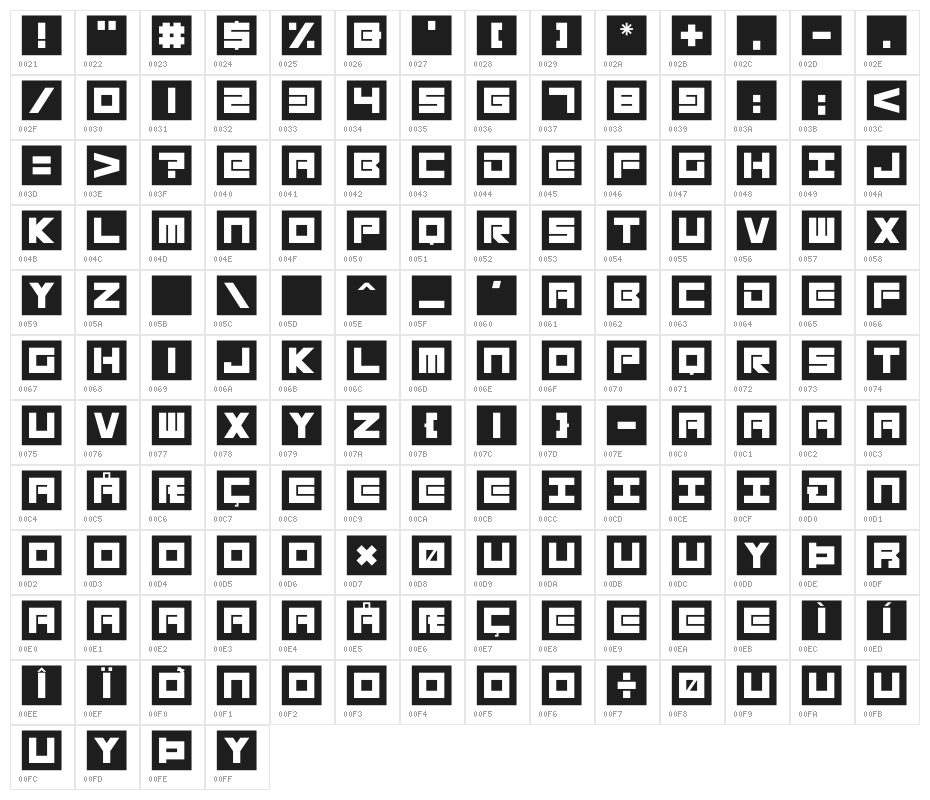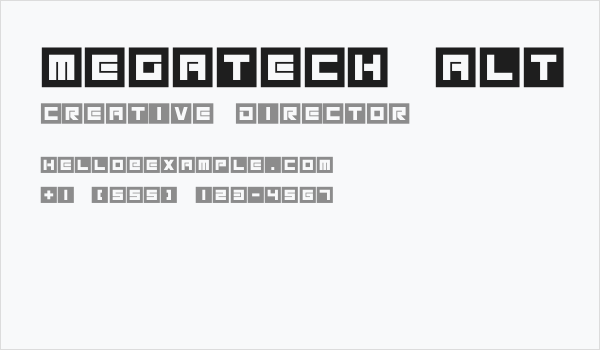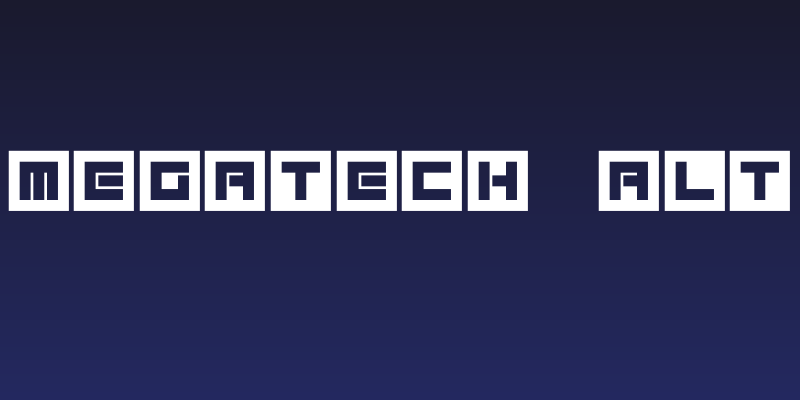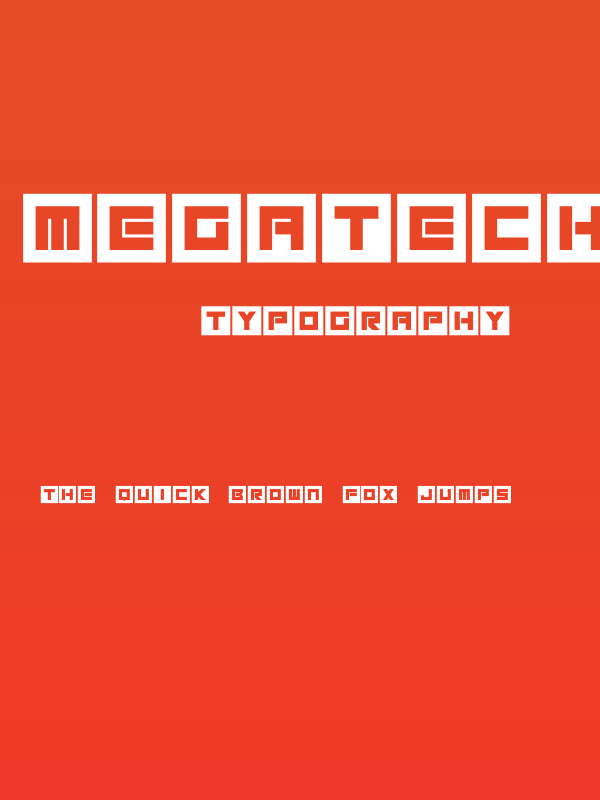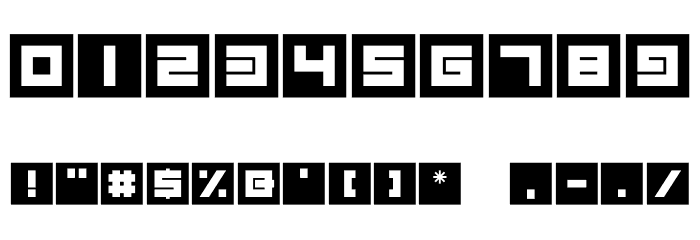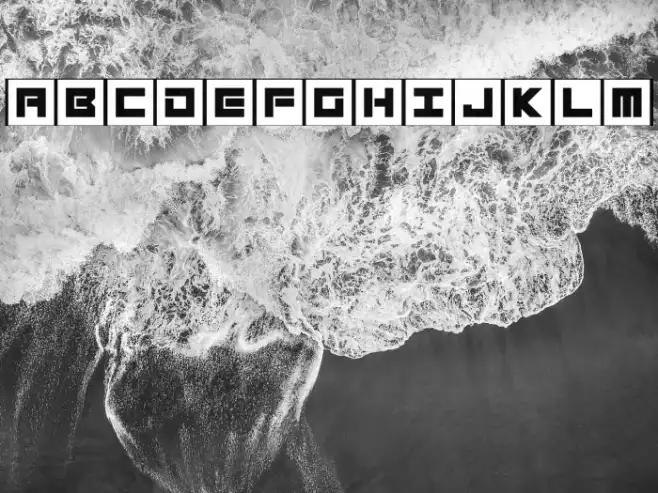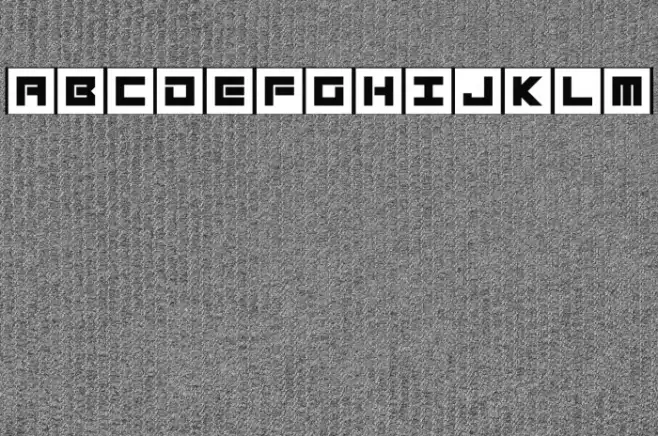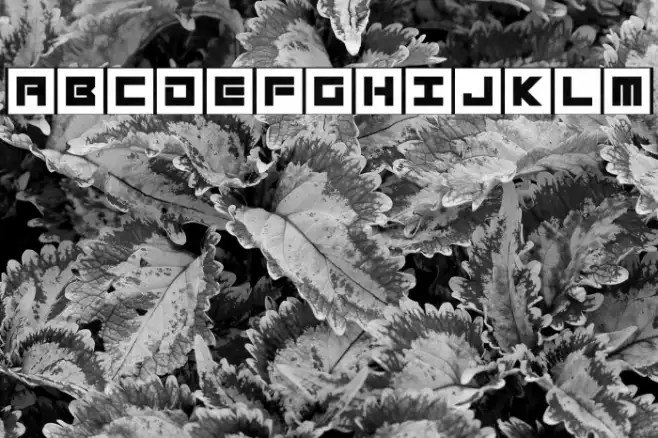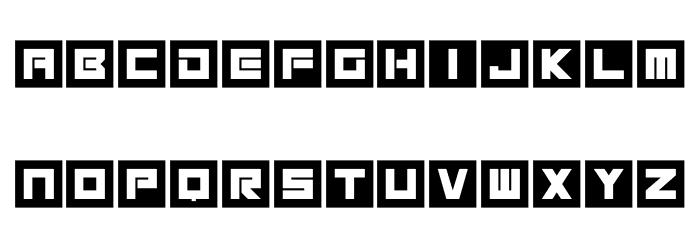
Megatech Alt Font
Megatech Alt Description
This font features a bold, geometric design with each character enclosed in a square, giving it a futuristic and digital appearance. The letters are uppercase with a blocky, pixelated style, reminiscent of early computer graphics or arcade games. The numbers and special characters follow the same design principles, maintaining consistency across the set. The font's strong lines and sharp angles make it highly legible, even at smaller sizes, while the enclosed design adds a unique touch that sets it apart from more traditional fonts.